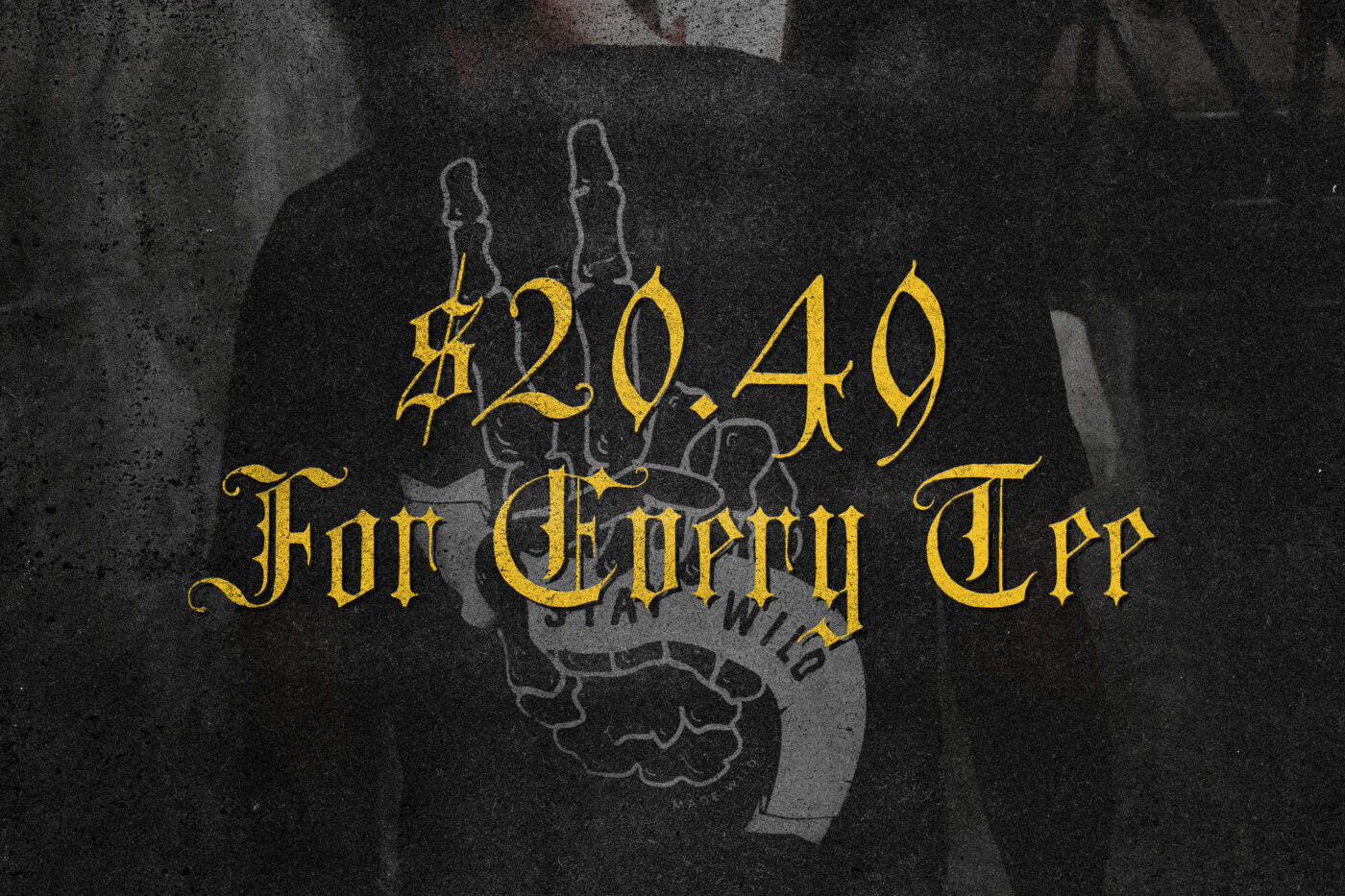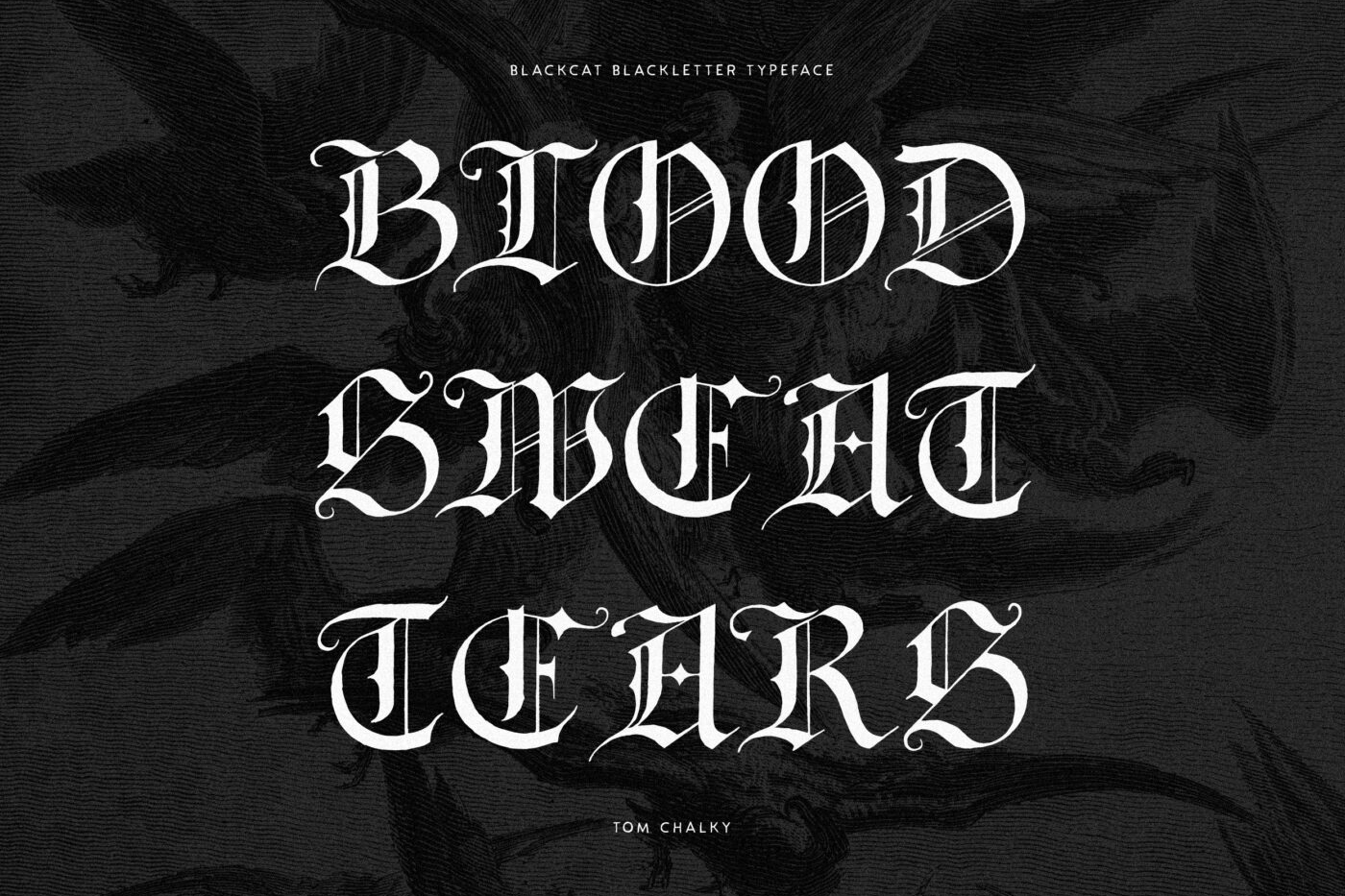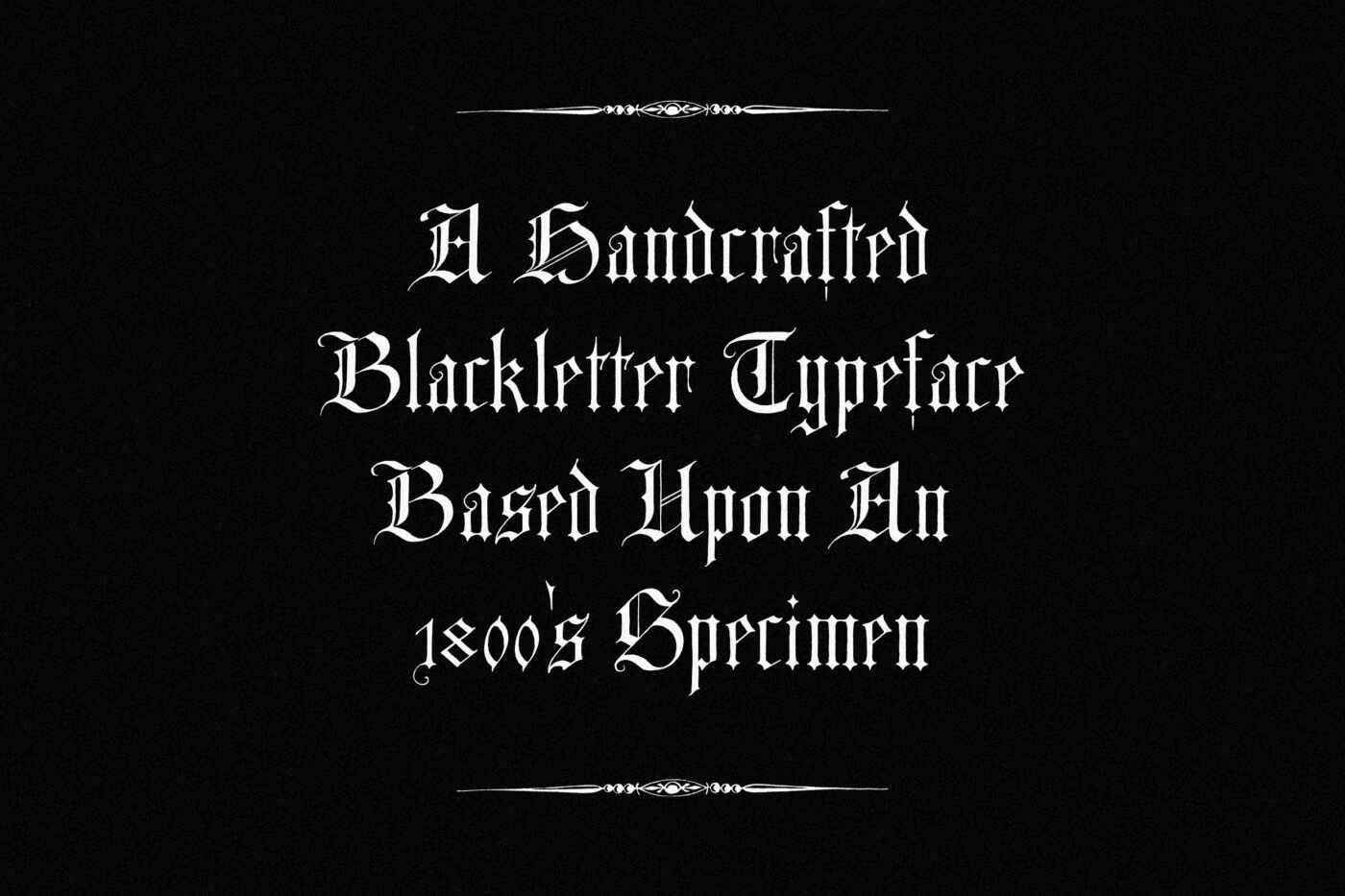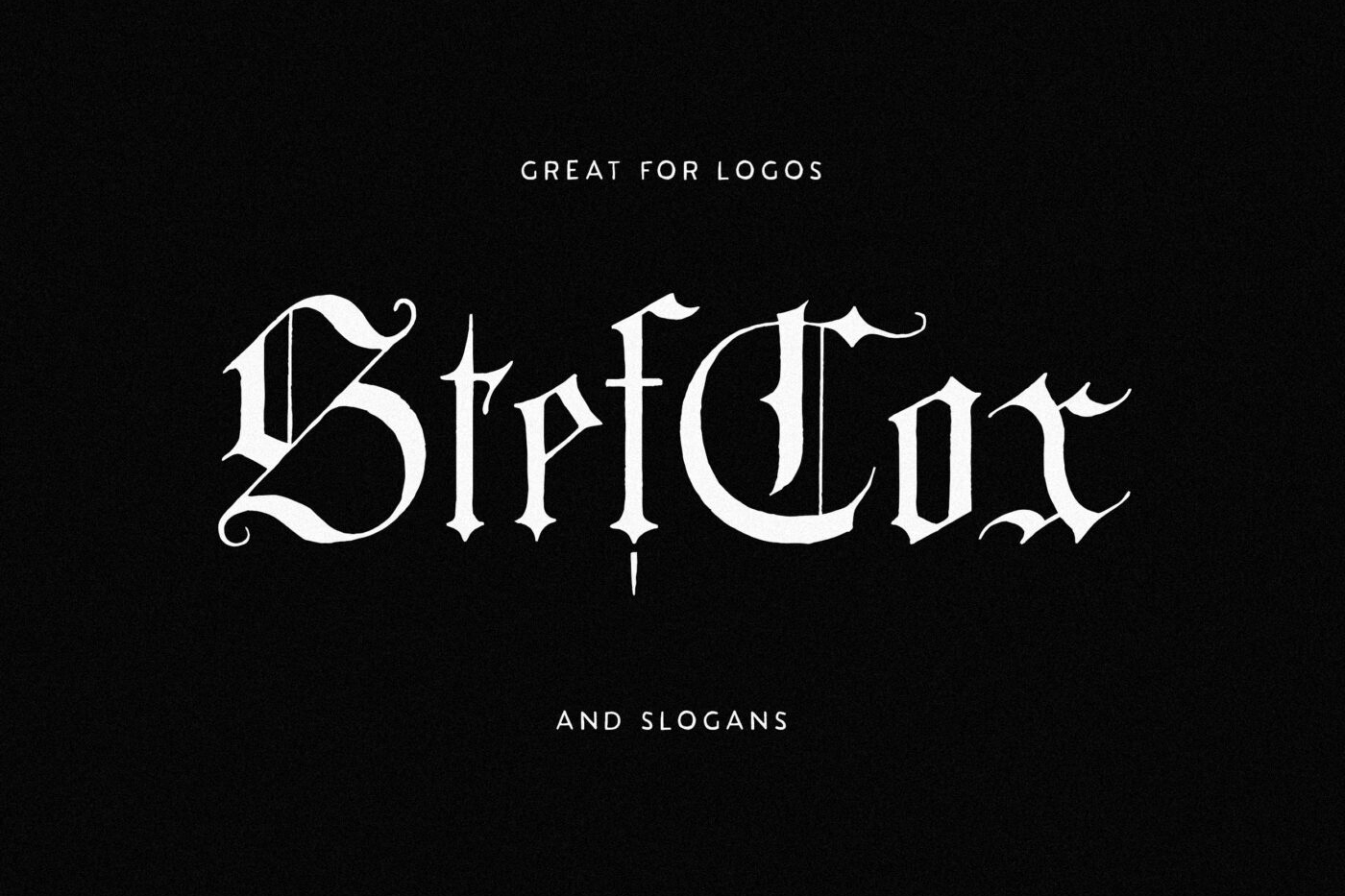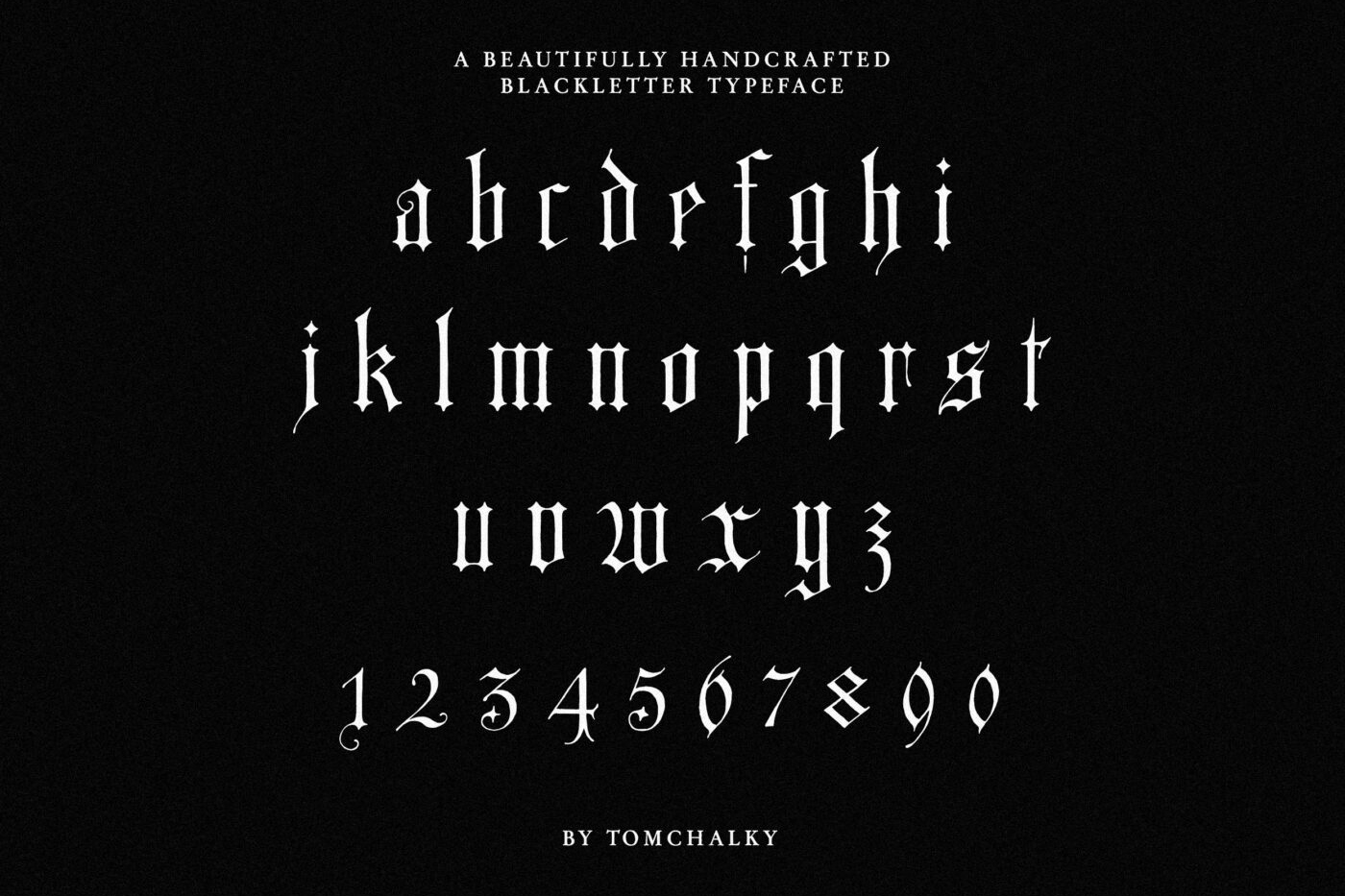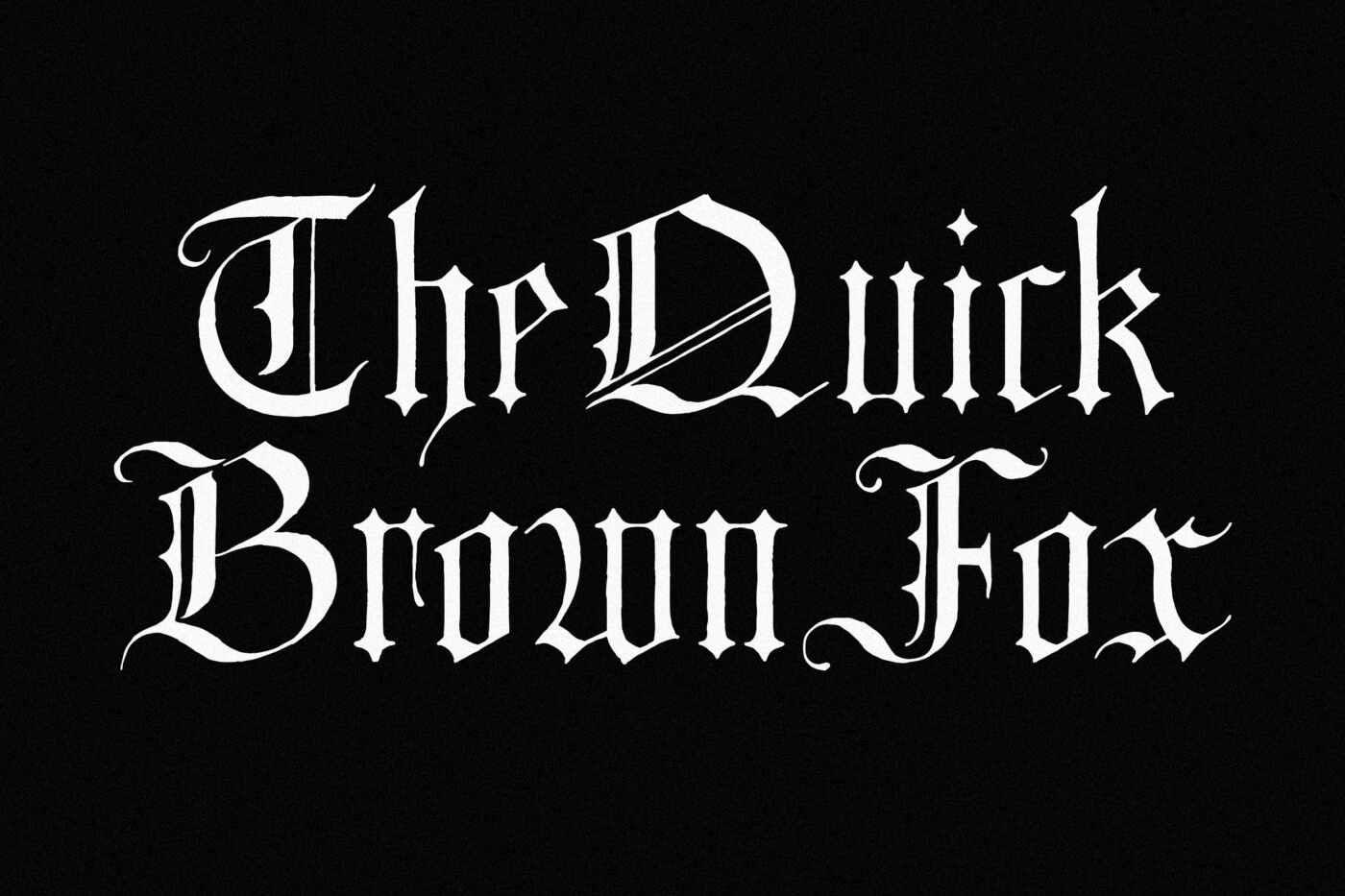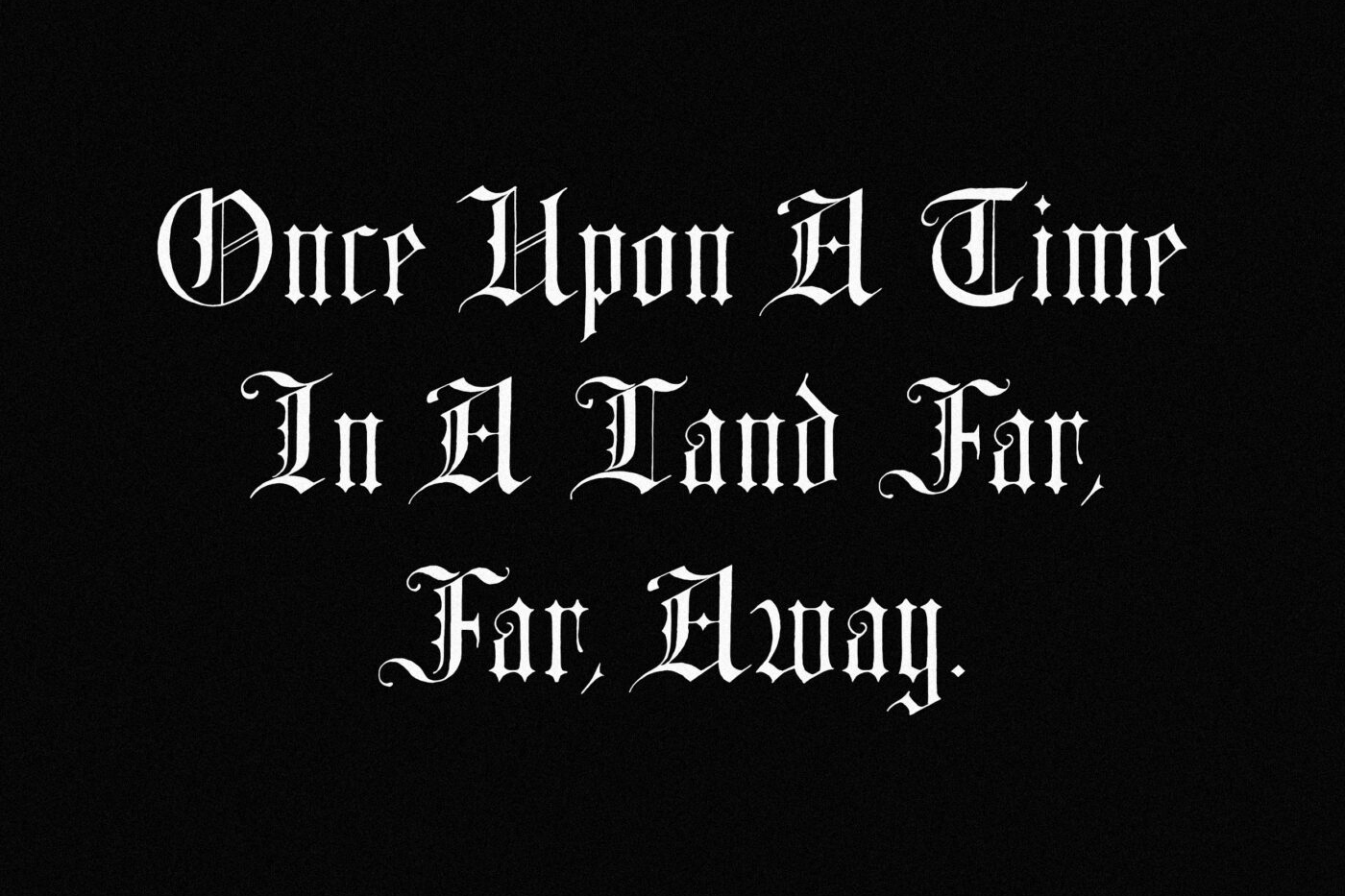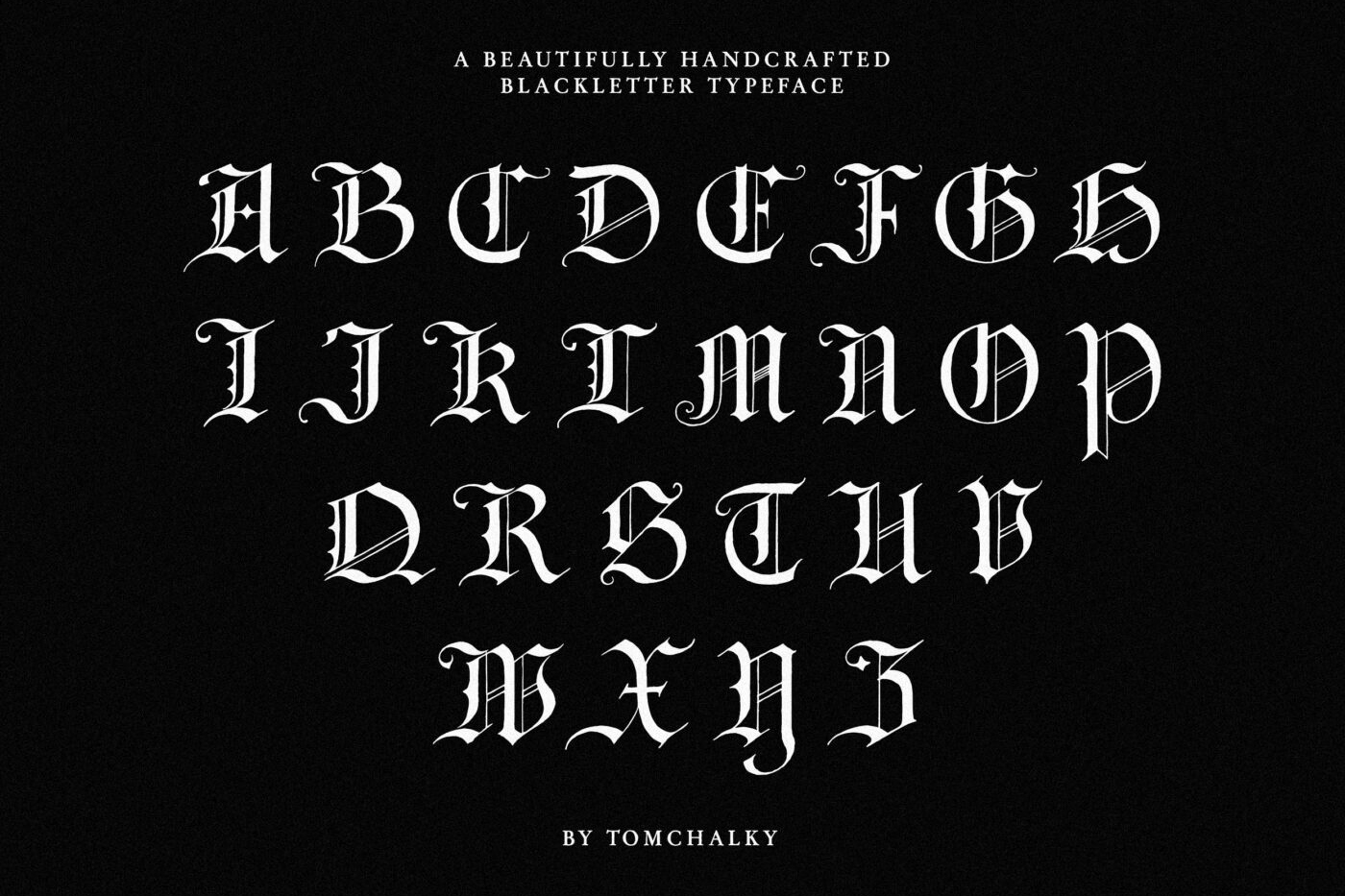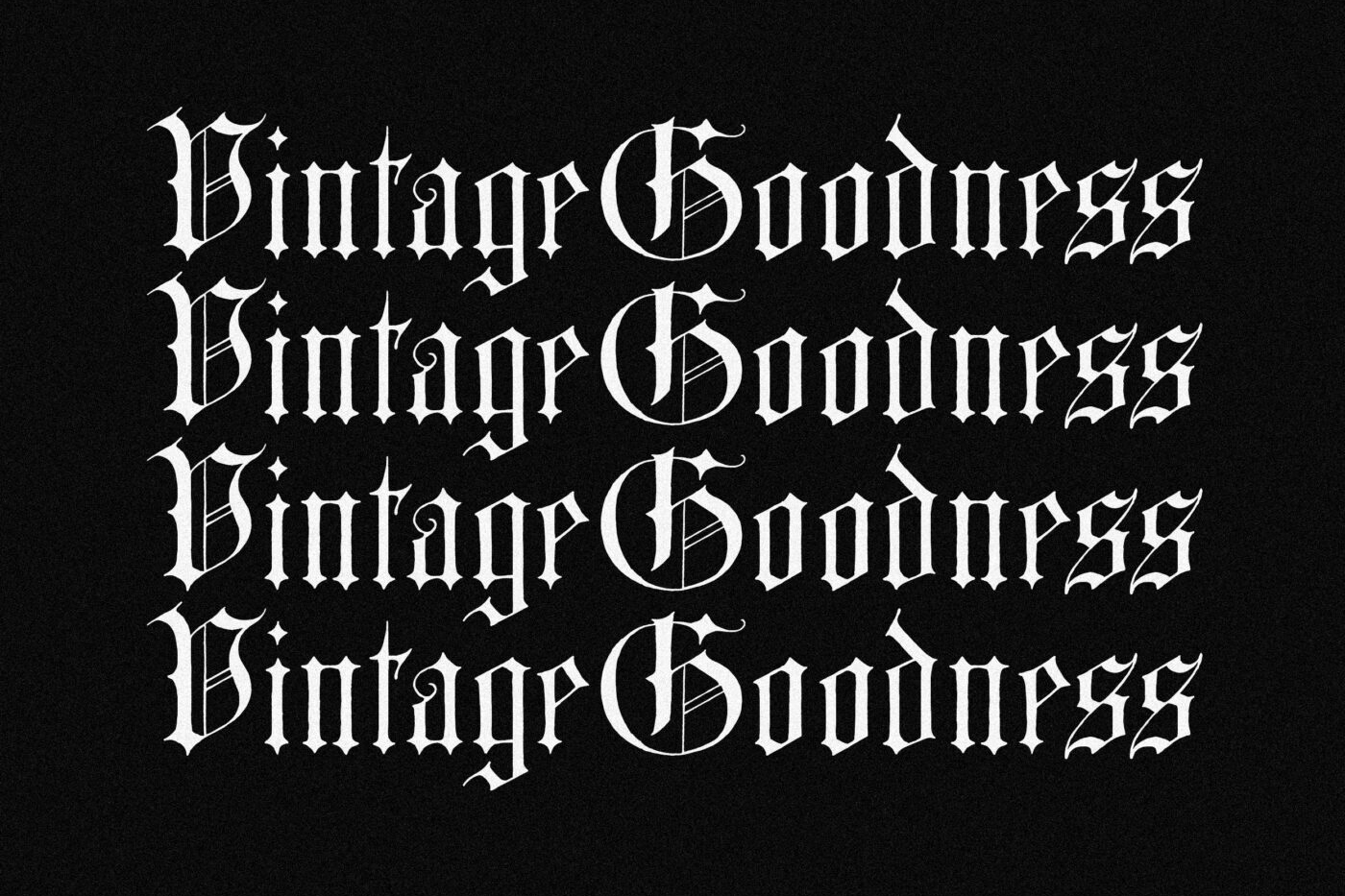
TC Blackcat
Blackcat is a bold reimagining of an 1800s vintage blackletter specimen. With its sharp angles, gothic curves, and a touch of modern refinement, this font balances tradition and versatility. Perfect for projects that demand attention, from branding and packaging to album covers and editorial design.
Carefully handcrafted, Blackcat channels the richness of historical letterforms, holding firm to its roots. It’s as at home in medieval-inspired designs as it is in high-impact, modern layouts.
- Glyph Coverage: Full blackletter typeface with uppercase, lowercase, numerals, punctuation, and multilingual support!
- Usage Suggestions: Vintage aesthetics, Gothic themes, and Bold headlines.
- Font Pairing Suggestion: Clean, sans-serif accents.
Blackcat is more than just a typeface—it’s a statement. Its dramatic presence gives your designs a timeless edge, whether you’re creating logos, posters, or editorial spreads.